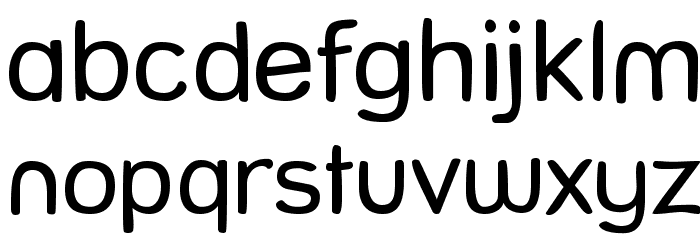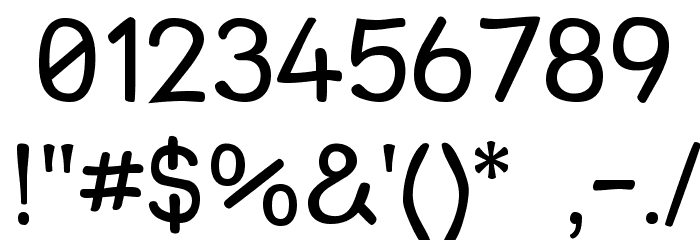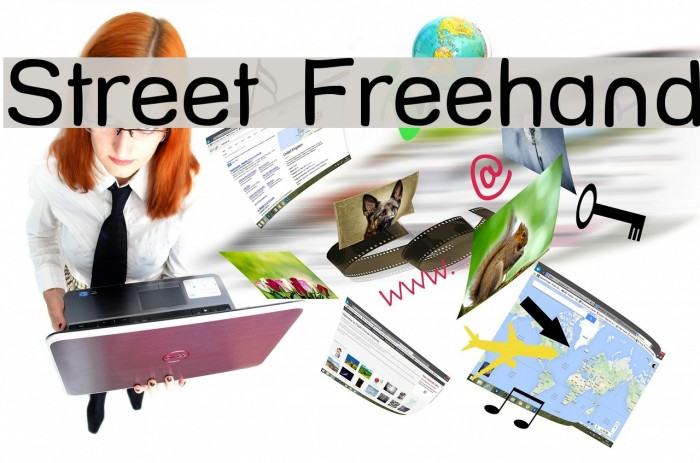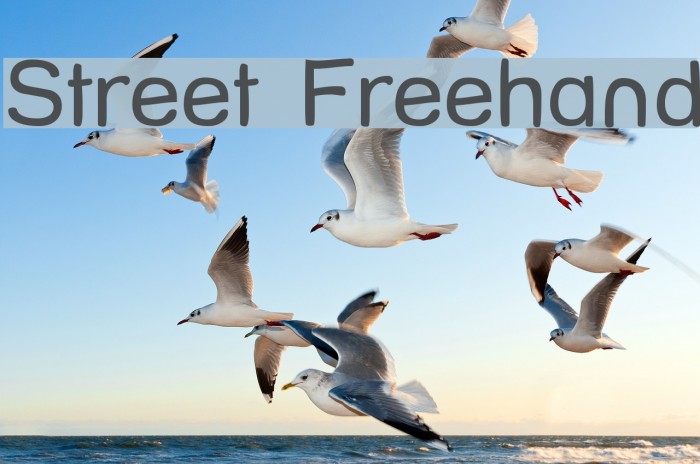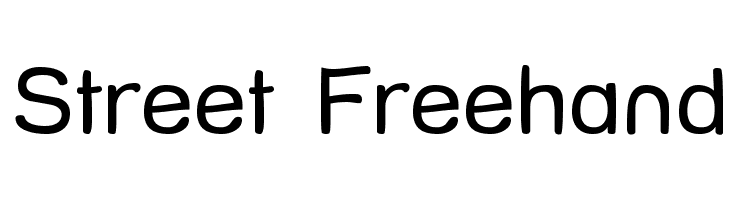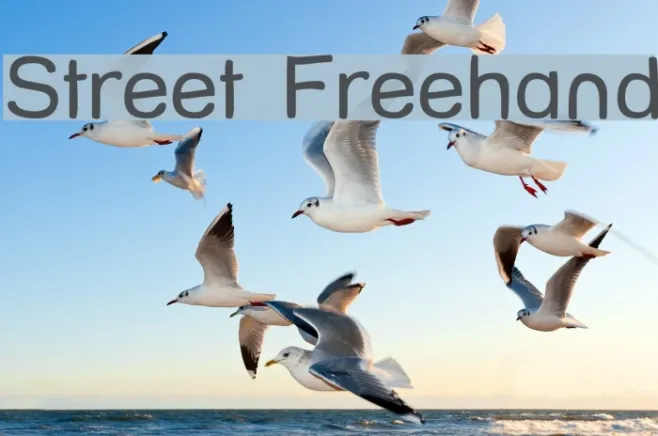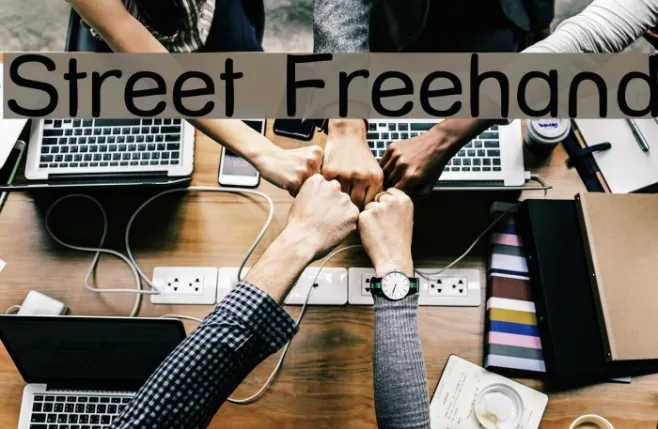
Street Freehand Font
This font features a casual, handwritten style with smooth, rounded edges and a playful appearance. The characters are evenly spaced, providing a clean and approachable look. Uppercase and lowercase letters maintain a consistent height, contributing to a harmonious flow. The numerals and special characters are designed to match the overall aesthetic, ensuring a cohesive appearance across all text. This font is ideal for projects that require a friendly and informal touch, such as children's books, greeting cards, or creative branding materials.
A casual, handwritten-style font with smooth, rounded edges and a playful appearance.
- Proposed Projects: Ideal for children's books, greeting cards, creative branding, and informal invitations.
- Category: Handwritten
- Overall Style: Casual
- Use Case: Headlines, Informal text, Creative projects